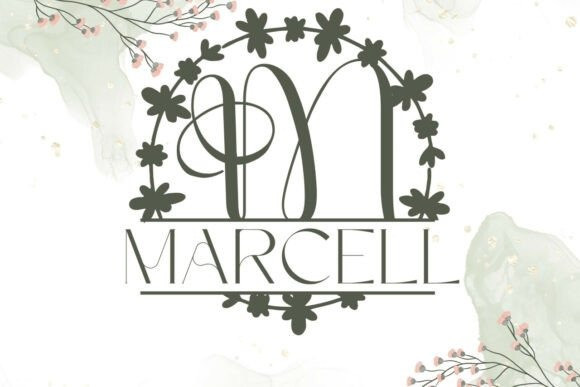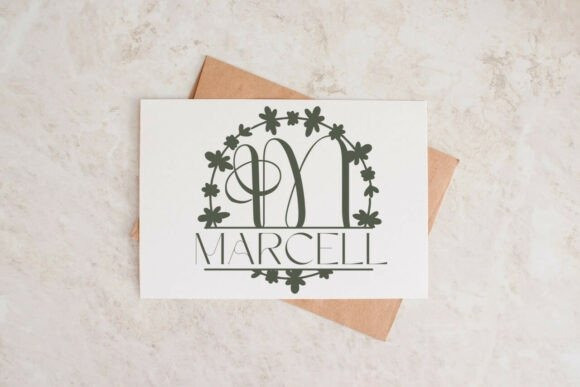
Monoluxe S Plit Monogram Font
Monoluxe S Plit Monogram Font instantly transforms any initial into a sleek, name-ready emblem, delivering boutique poise with its calm and balanced letterforms. A precise horizontal split creates natural space for names, dates, or short words, and the font’s even spacing and open counters ensure designs look polished and readable on everything from tiny tags and ornaments to tumblers and statement wall art. Pair it effortlessly with a clean sans or a light script to maintain a premium, readable, and on-brand layout.
This font excels at fast personalization; simply set one hero initial and place the family name inside the split for instant results. It’s also perfect for couple names on engagement gifts, venue names on signage, or short thematic words like Home or Welcome for seasonal décor. Since its proportions favor clarity, your files scale smoothly and consistently for all cutting and laser projects, including Cricut, Silhouette, and Glowforge, speeding up batch customization across all your listings and storefronts.
Installation is fast, allowing you to start creating in Canva, Photoshop, and Illustrator immediately. Monoluxe is engineered for premium results; its smooth curves maintain crisp detail for engraving, foil, deboss, and vinyl cuts at any size, ensuring cards, boxes, acrylic signs, and stainless tumblers hold a sharp, high-end finish. The consistent metrics allow you to reuse a single base template across seasons—just change the letter and update the name for quick product launches.
Makers choose Monoluxe because it delivers consistent, high-end name designs in minutes, making personalization feel bespoke while keeping your shop’s visual language cohesive from gifts to signage.